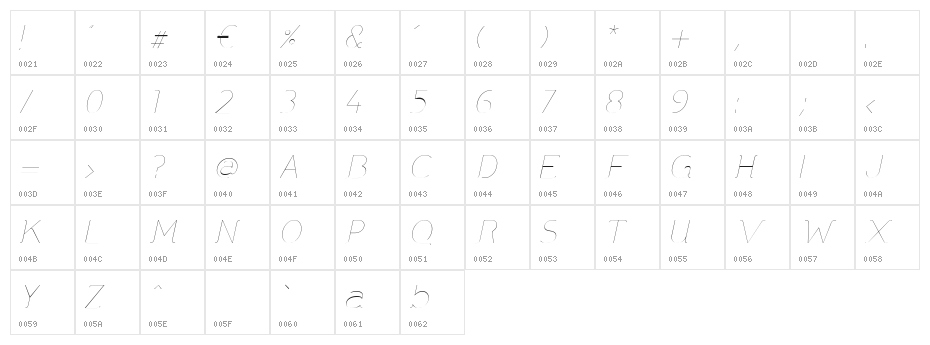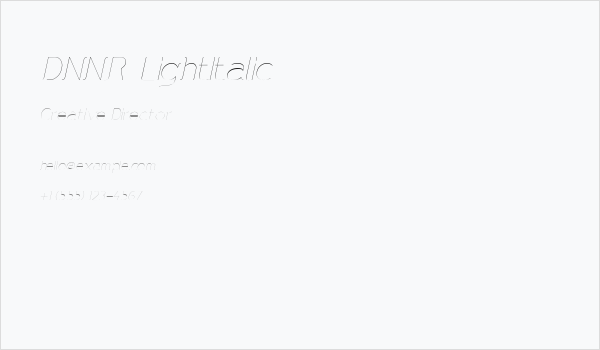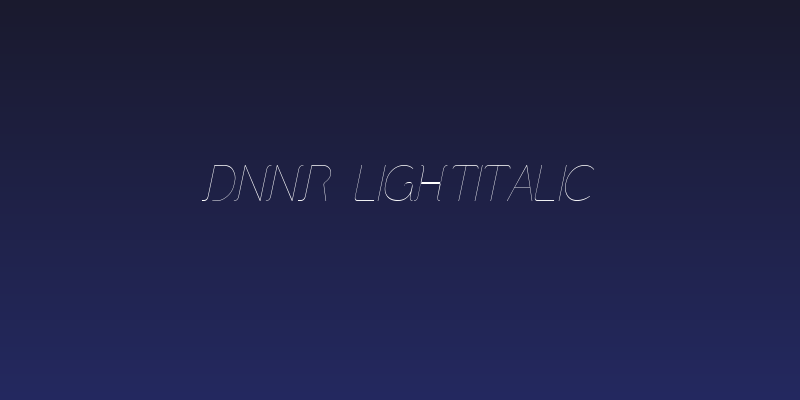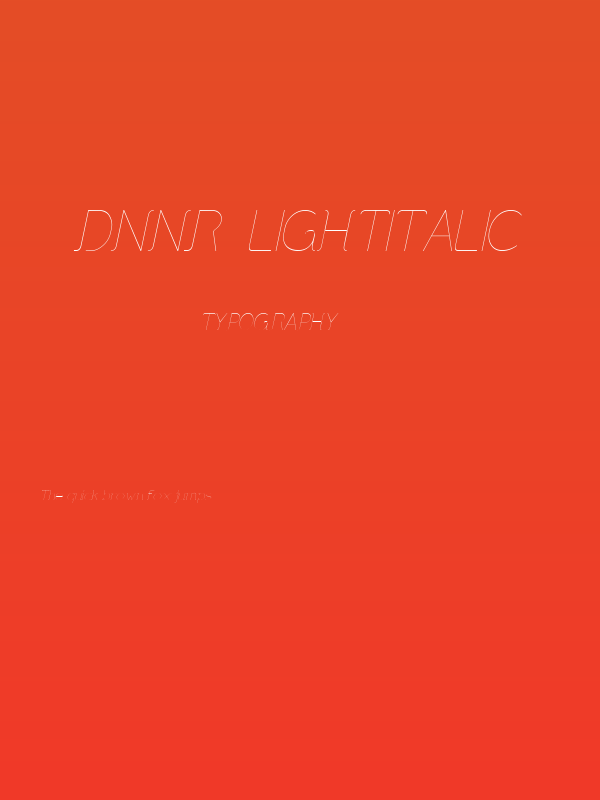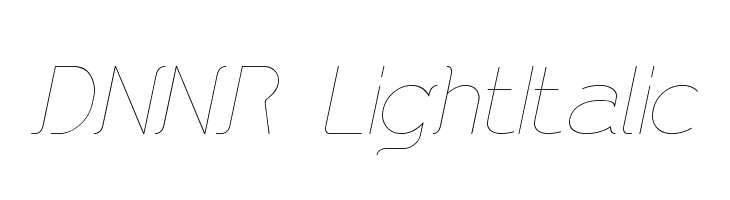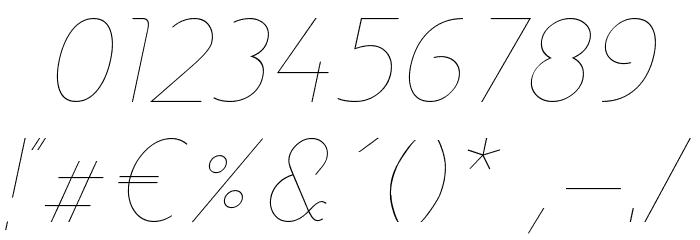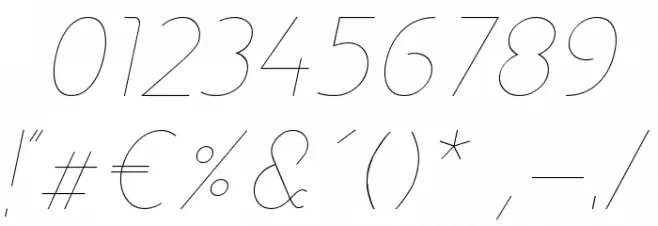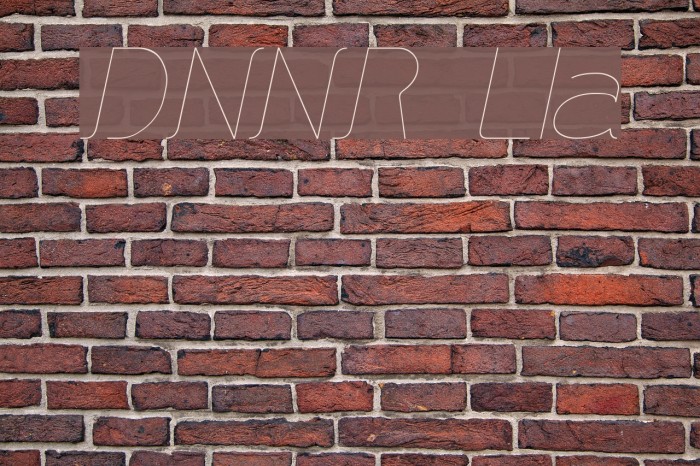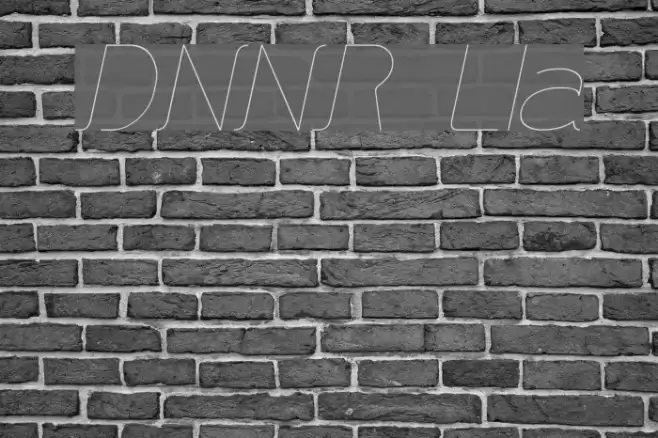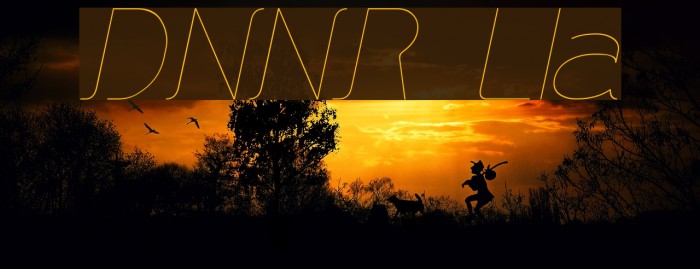
DNNR LightItalic Font
DNNR LightItalic Description
This font exhibits a sleek and modern design with a light and airy feel. The characters are elegantly crafted with a slight italic slant, giving them a dynamic and forward-moving appearance. The strokes are thin and consistent, contributing to a refined and sophisticated look. The uppercase and lowercase letters maintain a harmonious balance, while the numerals and special characters are designed with clarity and precision. This font's minimalistic style makes it versatile for various design applications, offering a contemporary aesthetic that is both stylish and functional.
| Use Case | Headlines, Body text, Logos |
| Proposed Projects | Ideal for modern branding, editorial design, fashion magazines, and minimalist web design. |